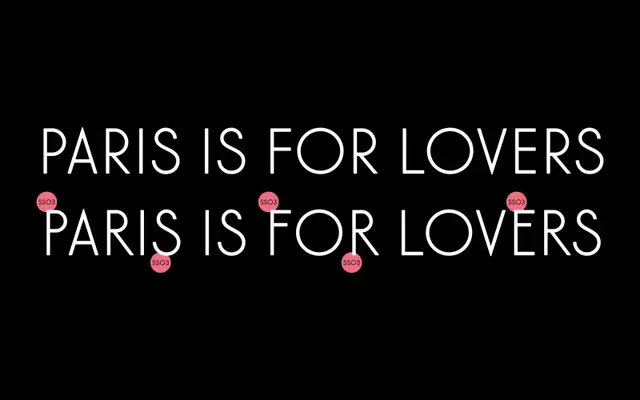
Elegant Lux Pro
A single-weight slim geometric sans with over 3,700 glyphs, extensive ligatures and multiple stylistic sets, rooted in Hans Möhring's 1928 Elegant Grotesk.
Designed by Florian Paizs of Schoener Studio, this slim sans takes Möhring's Elegant Grotesk as its starting point and rebuilds it with a geometric rigour softened by rounded corners. The OpenType font ships with 100-plus letter-combination ligatures, five stylistic sets covering both upper and lowercase alternates, small caps, ornaments and fractions. Language support stretches across Central, Western and Eastern European scripts including Cyrillic.
A slim, technologically constructed sans serif inspired by Elegant Grotesk, a 1928 geometric grotesque. Round corners soften its geometric construction, placing it firmly in the geometric sans tradition with a warmer character.